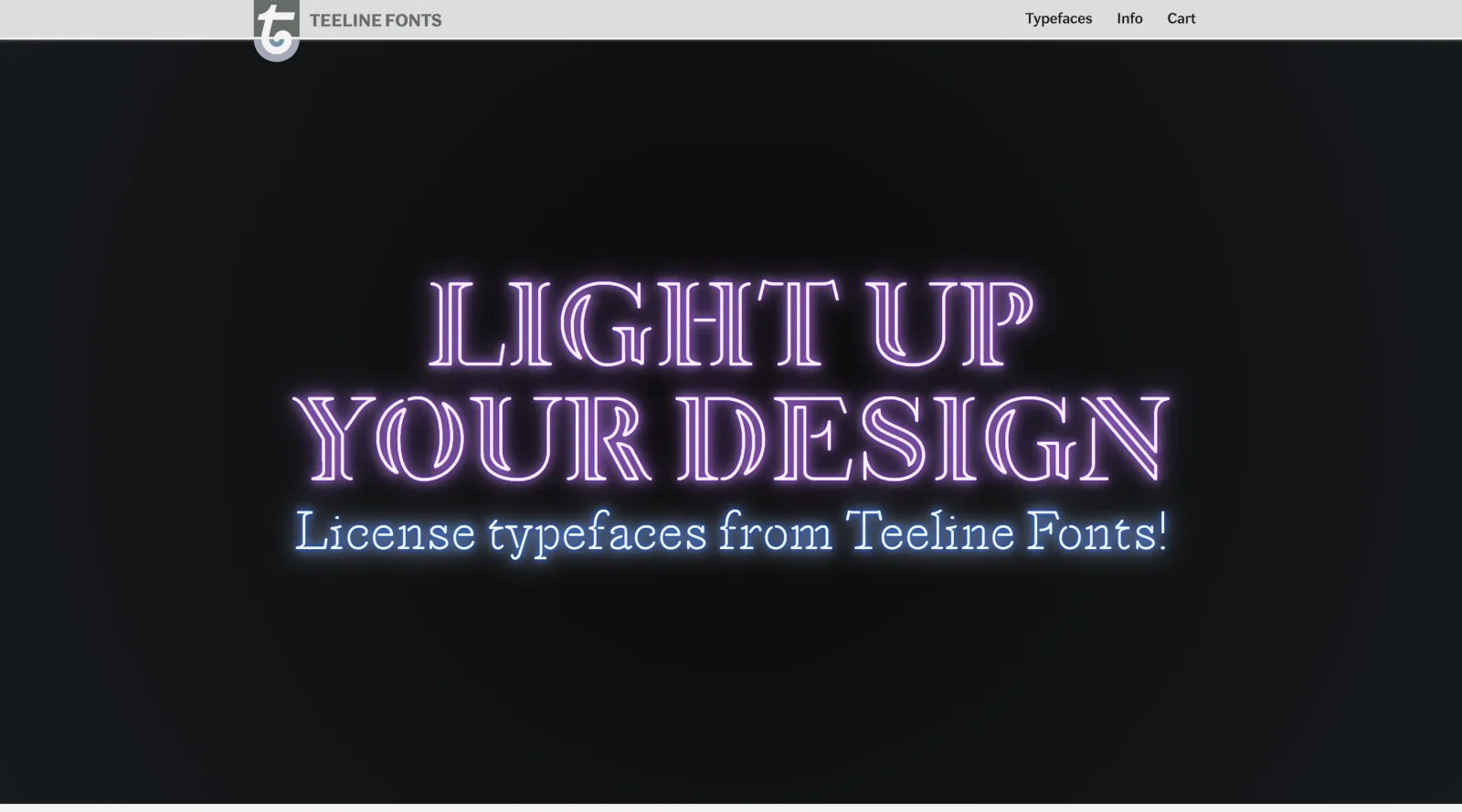
What Is Teeline Fonts?
Teeline Fonts is a typography project that develops TeX-based fonts focused on Teeline shorthand outlines. It provides a collection of fonts designed for rendering shorthand symbols clearly and legibly across various sizes, fitting into the typography category for designers and developers working with specialized typefaces. As a paid resource, Teeline Fonts supports access to modern, quirky font variations through a user-friendly platform.
What Teeline Fonts Does
- Develops free TeX-based fonts optimized for Teeline shorthand outlines.
- Offers a variety of font styles, including modern and stylish variations for design projects.
- Maintains letter clarity and legibility regardless of font size.
- Provides quick access to different types of fonts not commonly found in standard libraries.
- Supports rendering of over 240 specific shorthand outlines and infinite combinations via outline objects.
- Generates SVG-based paths for individual letters, words, or sentences in Teeline shorthand.
How Teeline Fonts Can Be Used
- Incorporate Teeline Fonts into design workflows for creating educational materials on shorthand writing, such as flashcards or revision cards.
- Use the fonts to generate interactive SVG outlines for web applications, displaying shorthand symbols with hover effects that simulate hand-drawn strokes.
- Apply Teeline Fonts in typography experiments for journalists or artists needing compact, stylized text representations in layouts or prototypes.
- Integrate with TeX documents or design software to produce legible shorthand text for printing or digital publishing.
- Leverage the font generator to convert longhand words into Teeline outlines for practice exercises or custom typographic compositions.
Who Is Teeline Fonts For?